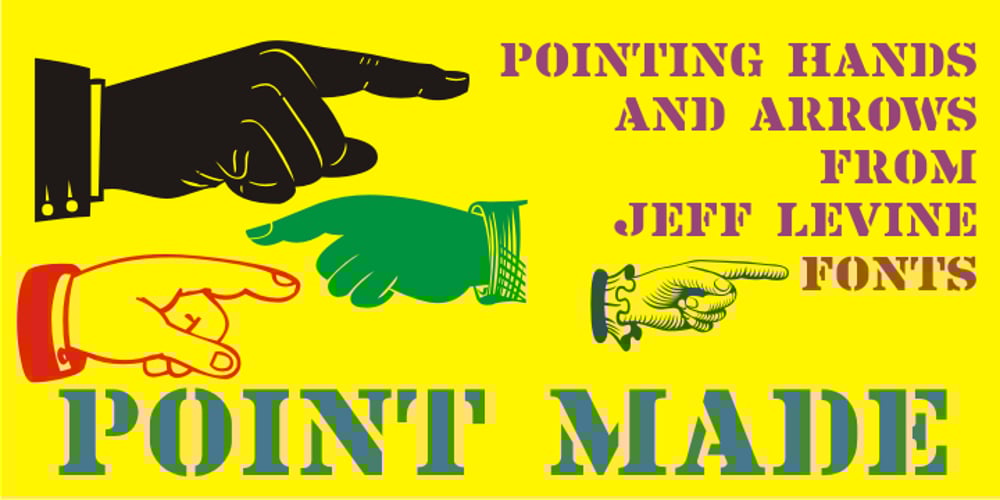
Point Made JNL
Point Made JNL font
Point Made JNL Font Family was designed by Jeff Levine and published by Jeff Levine. Point Made JNL contains 1 styles and family package options. Point Made JNL is a varied assortment of pointing hands and arrows used for embellishing word copy, drawing attention to key points or simply adding some retro flair to your print or web project. Twenty six designs in varying styles offer a wide range of visual diversity. The images point to the right on the capital keys and to the left on the lower case keys. This font is a companion to Point Taken JNL, which offers twenty-six more pointing hands and arrows.